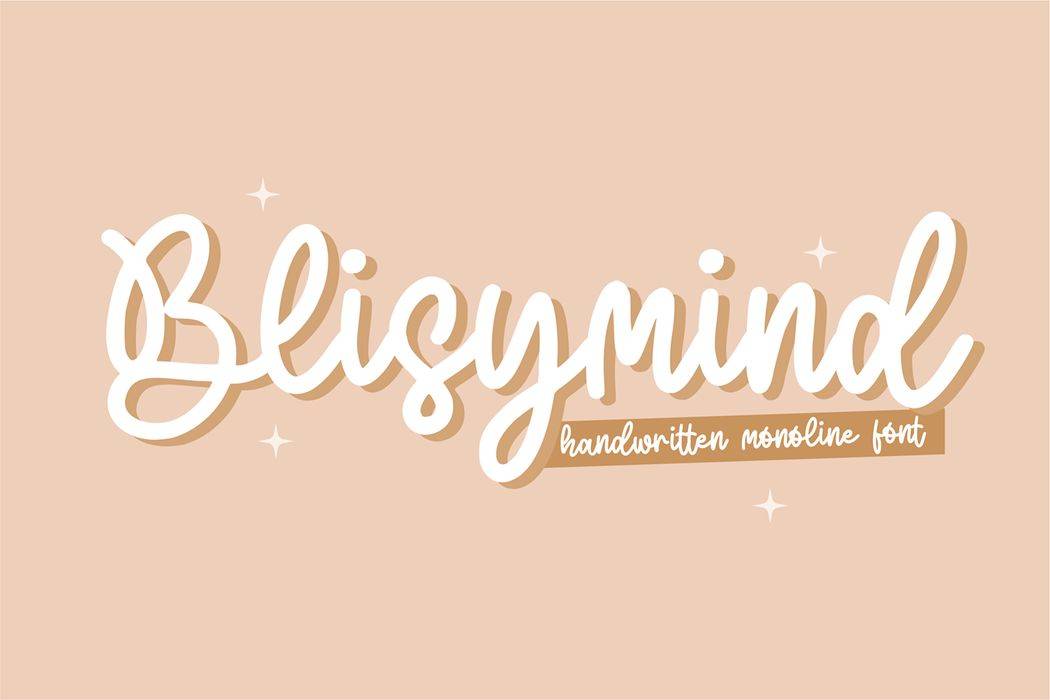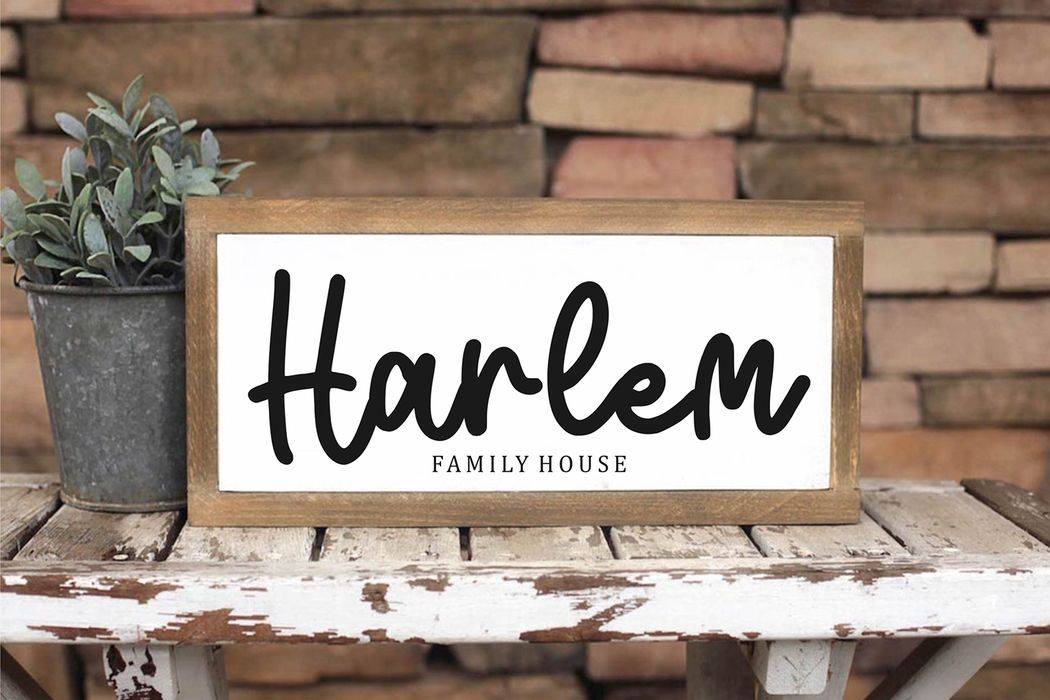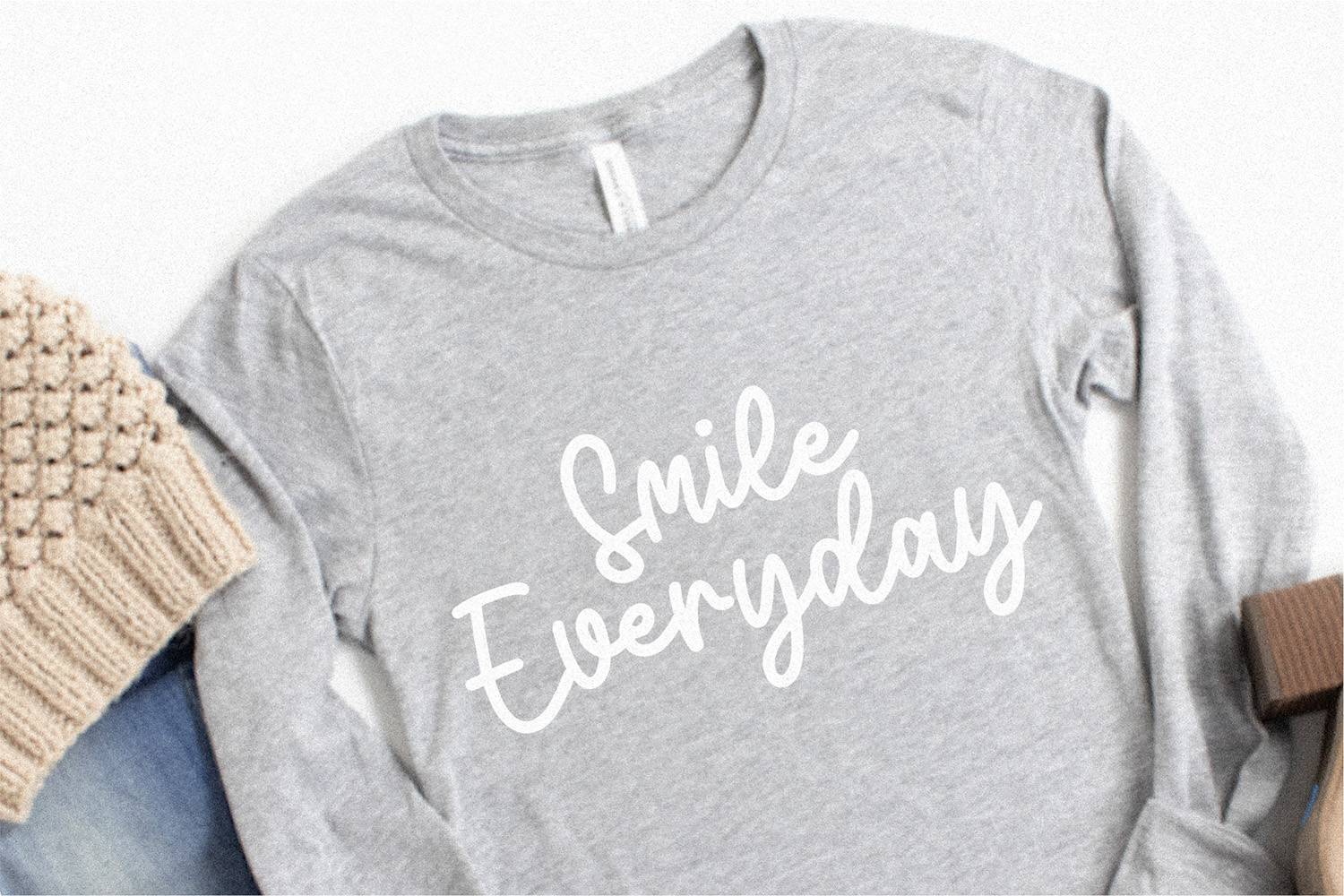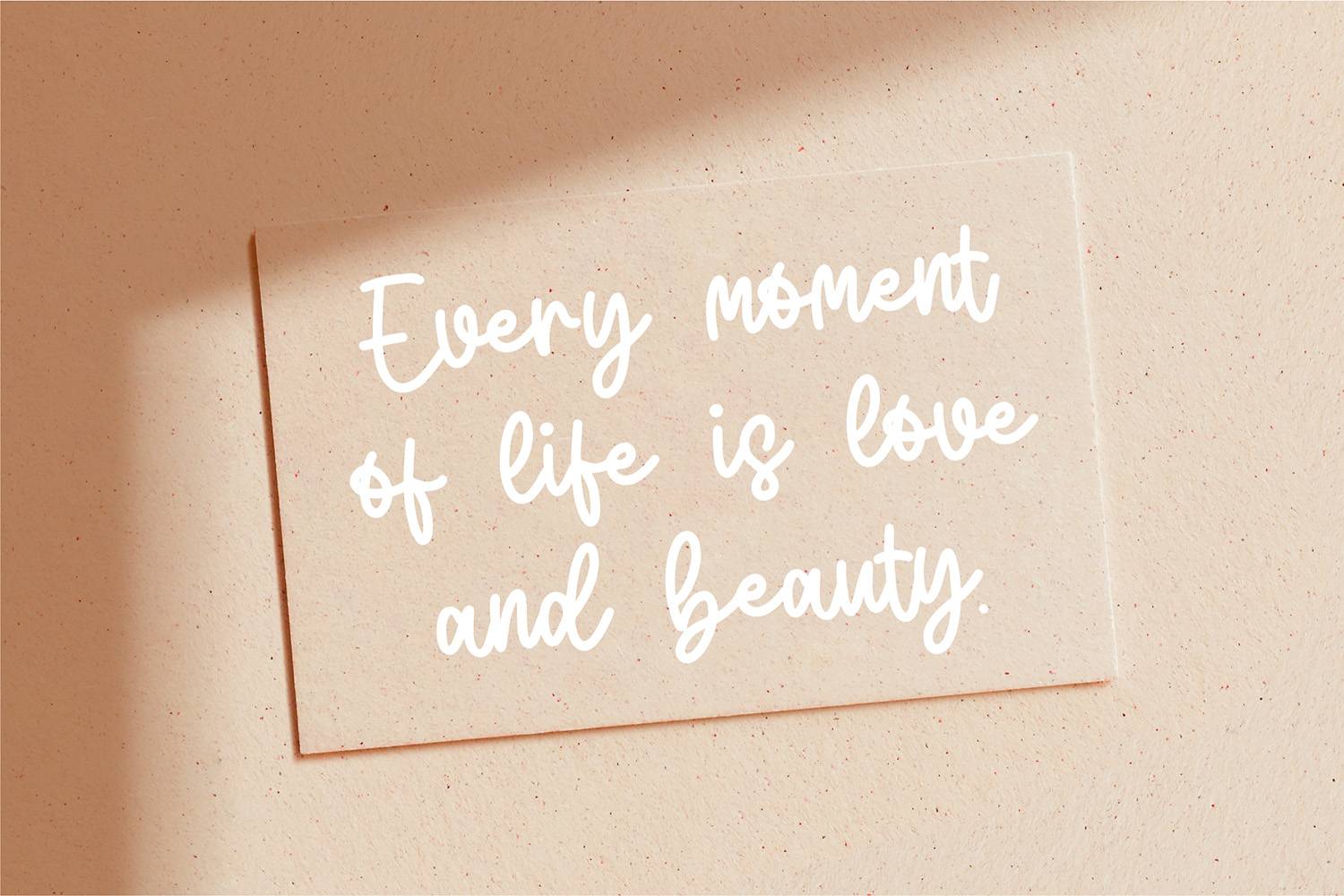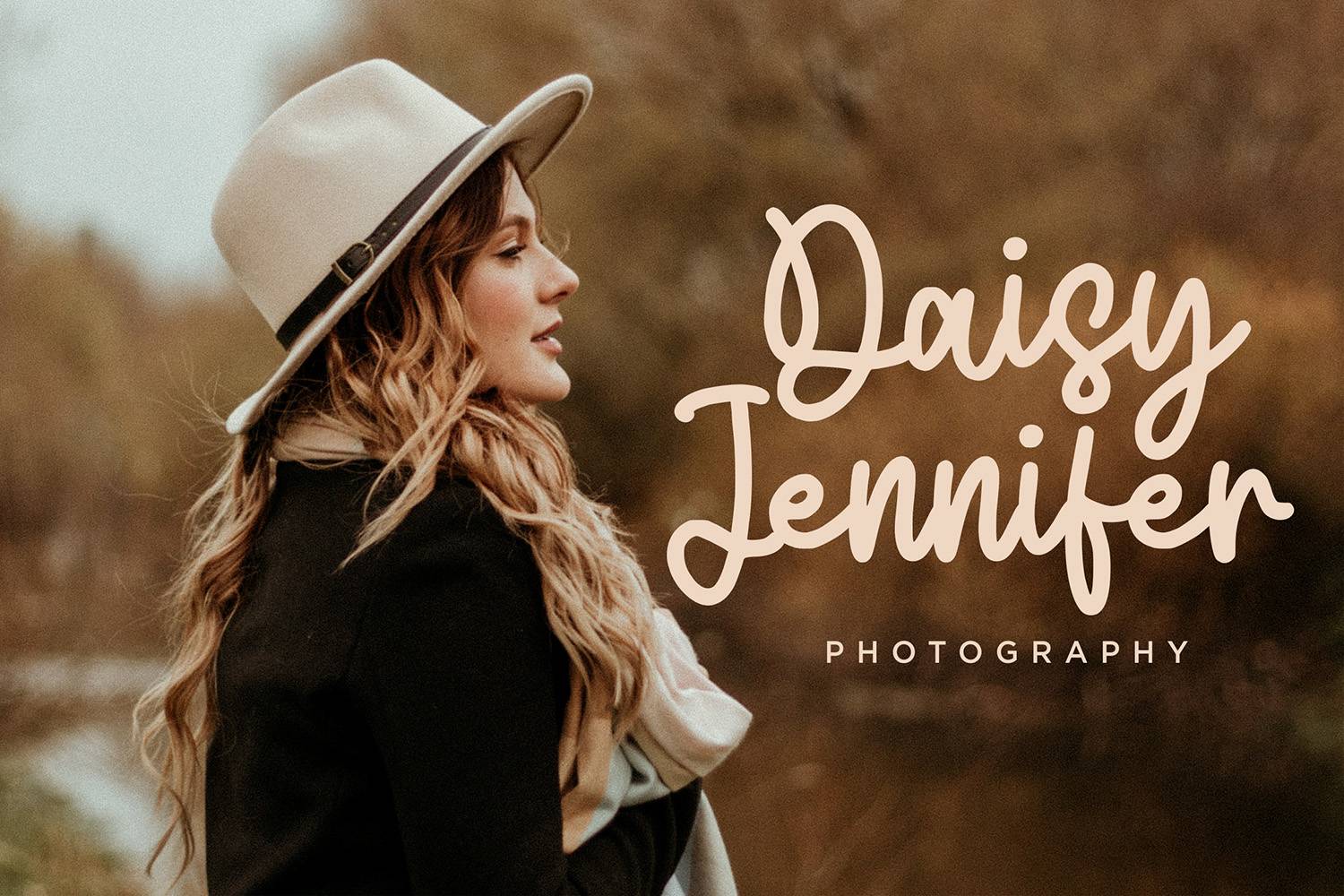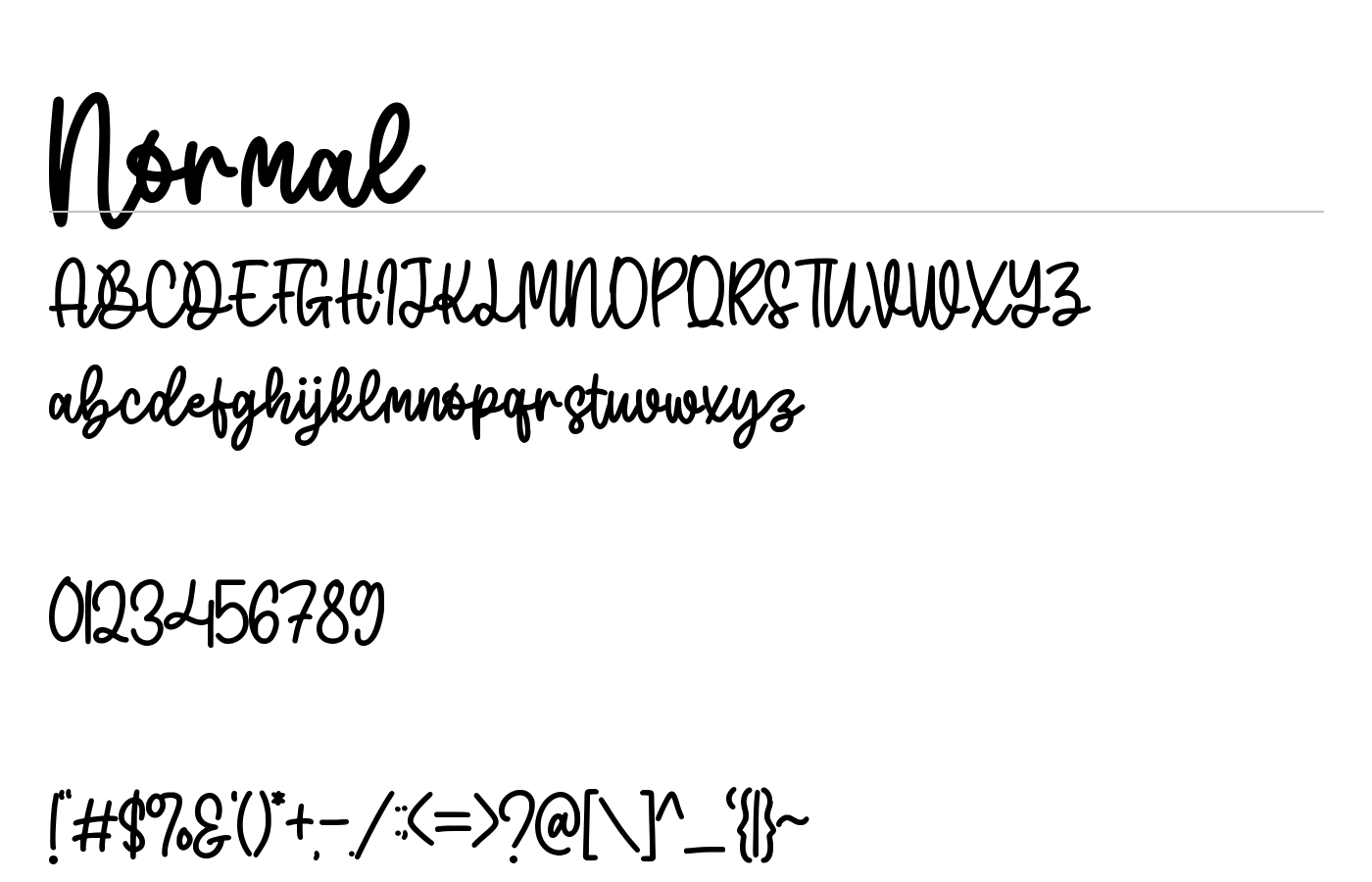
Blisymind is a playful and casual handwritten font with a lively, informal character, featuring smooth, rounded strokes and a slightly condensed width. Its tall x-height and consistent line weight enhance readability while retaining a personal, friendly feel, making it ideal for creative projects, social media graphics, and lighthearted branding. This font works best in headlines, logos, and packaging where a warm, approachable vibe is desired.
Blisymind Font
About Blisymind Font